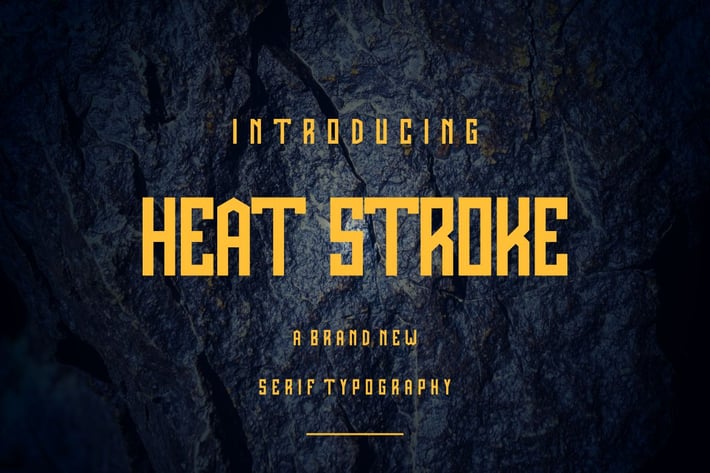
HEAT STROKE SERIF FONT
HEAT STROKE SERIF FONT is a bold and authentic display font. The font is suitable for any branding project like logo, t-shirt printing, esport, and many more. outstanding in a wide range of contexts.